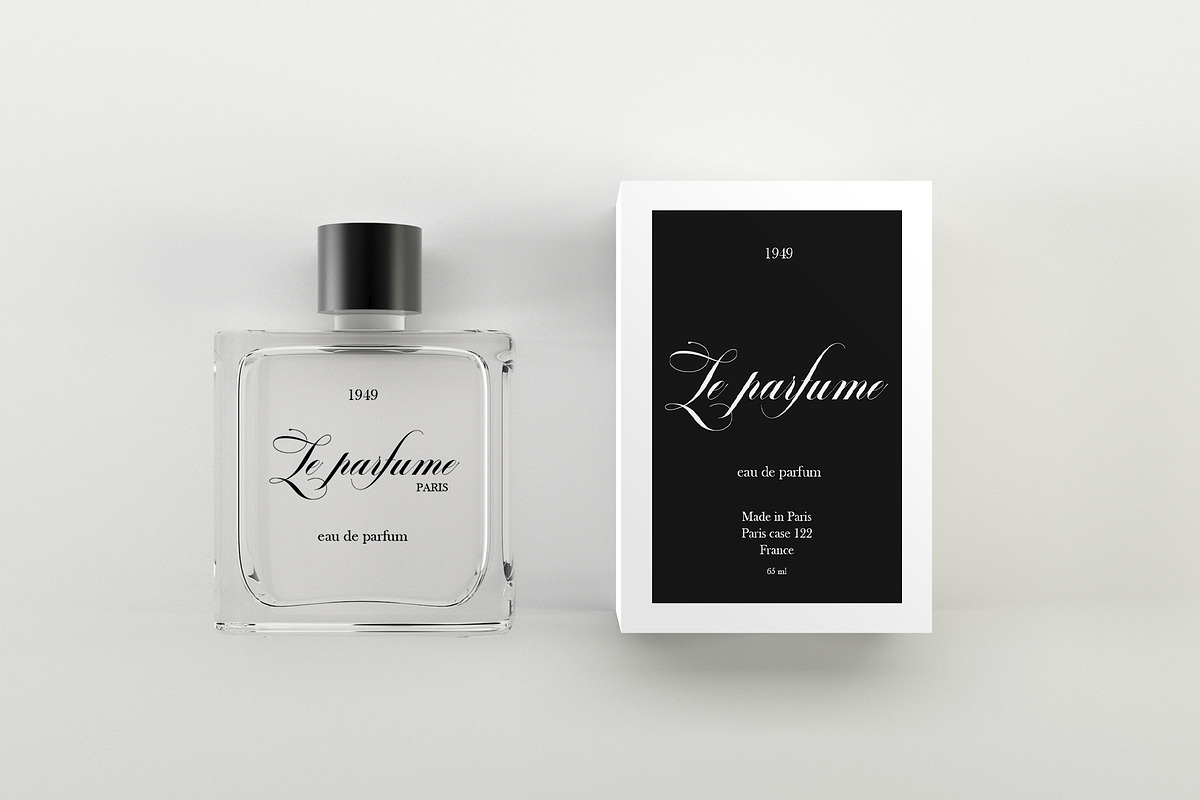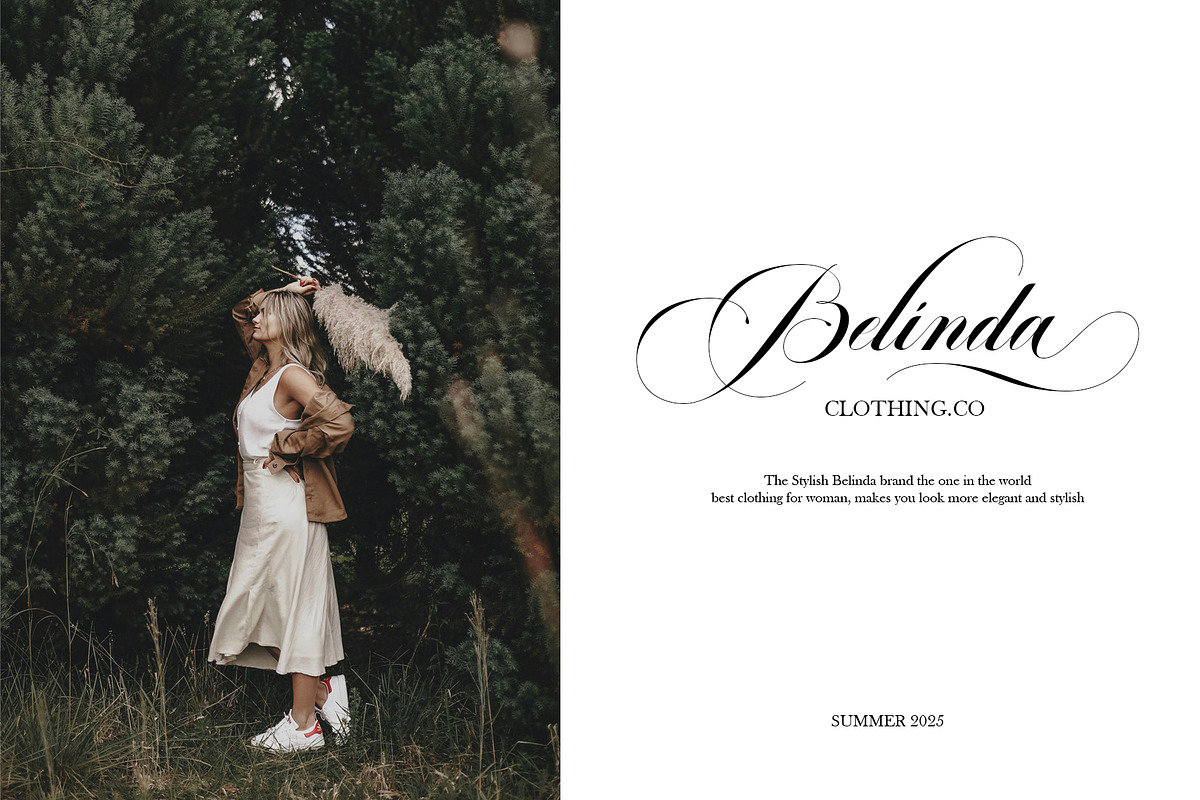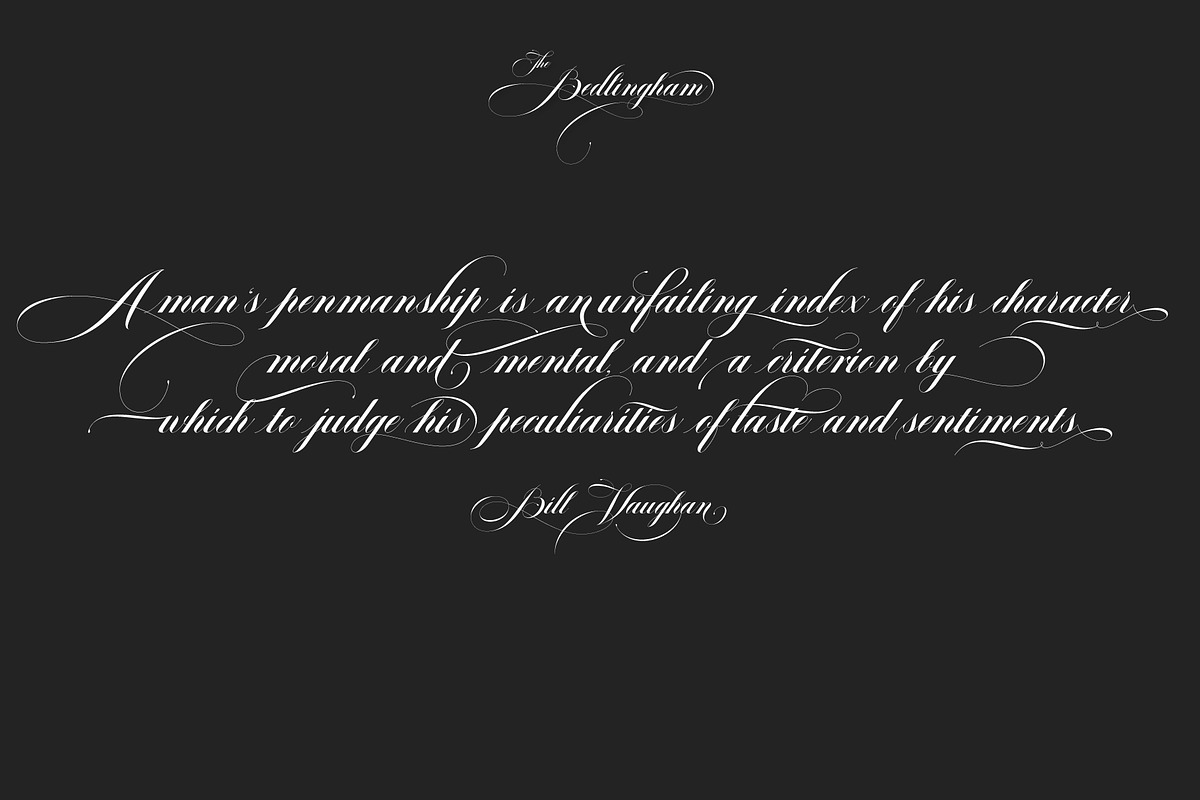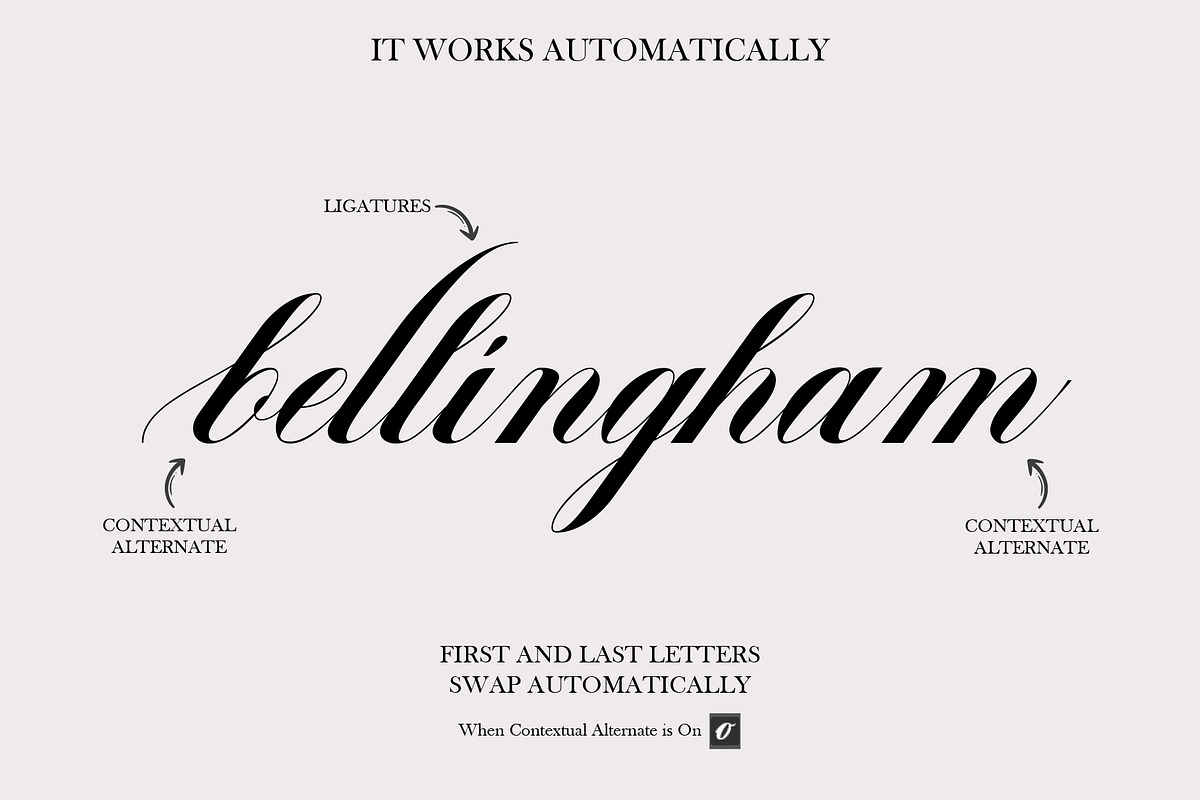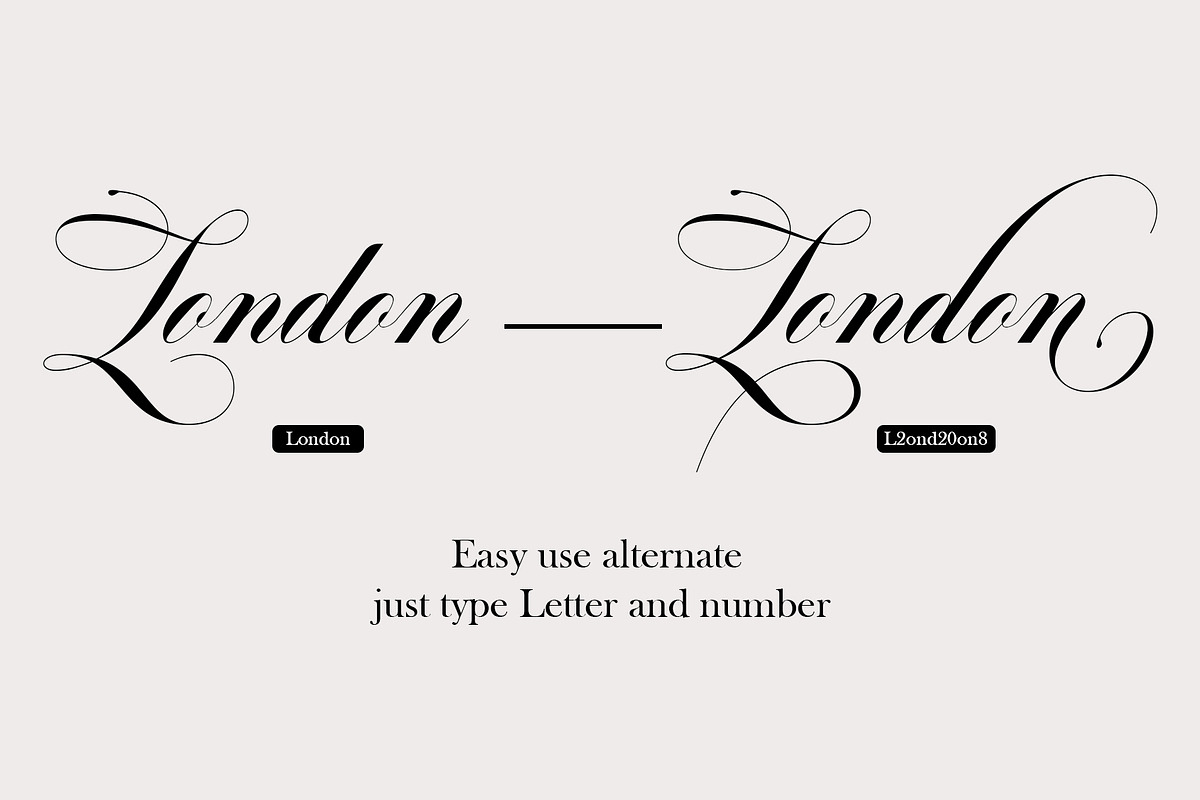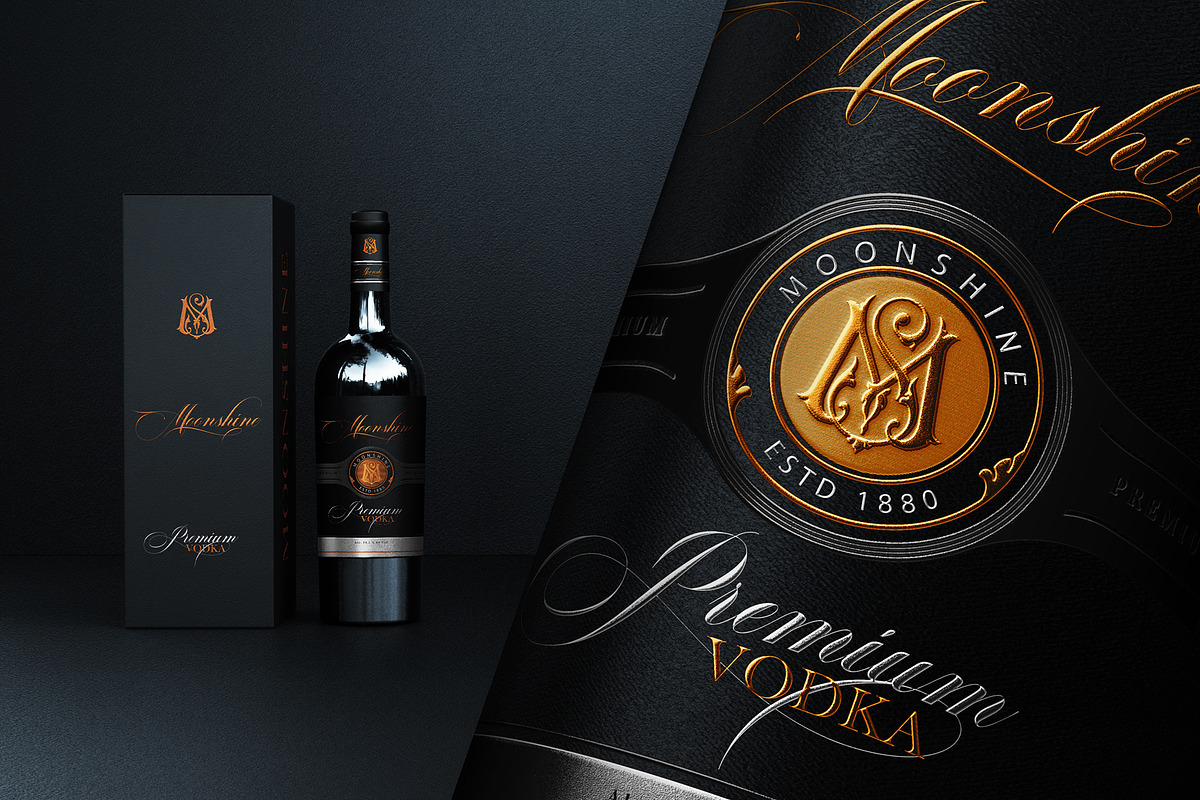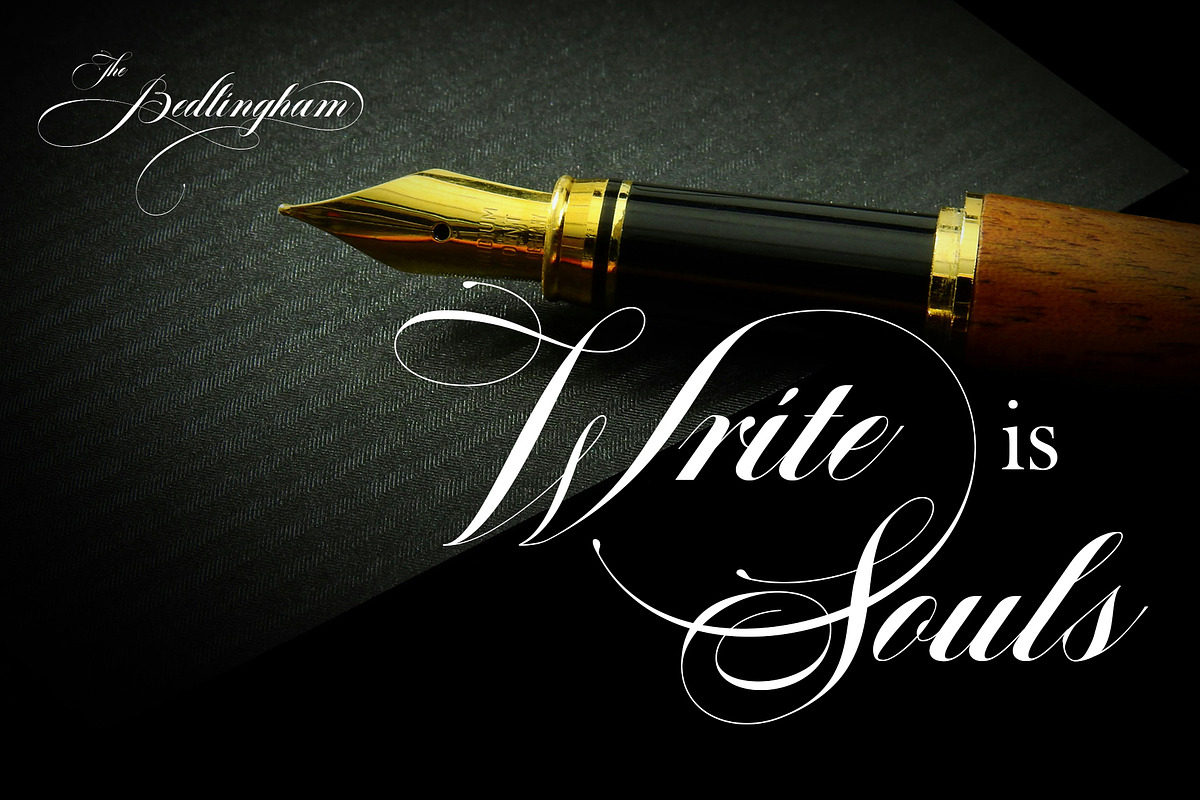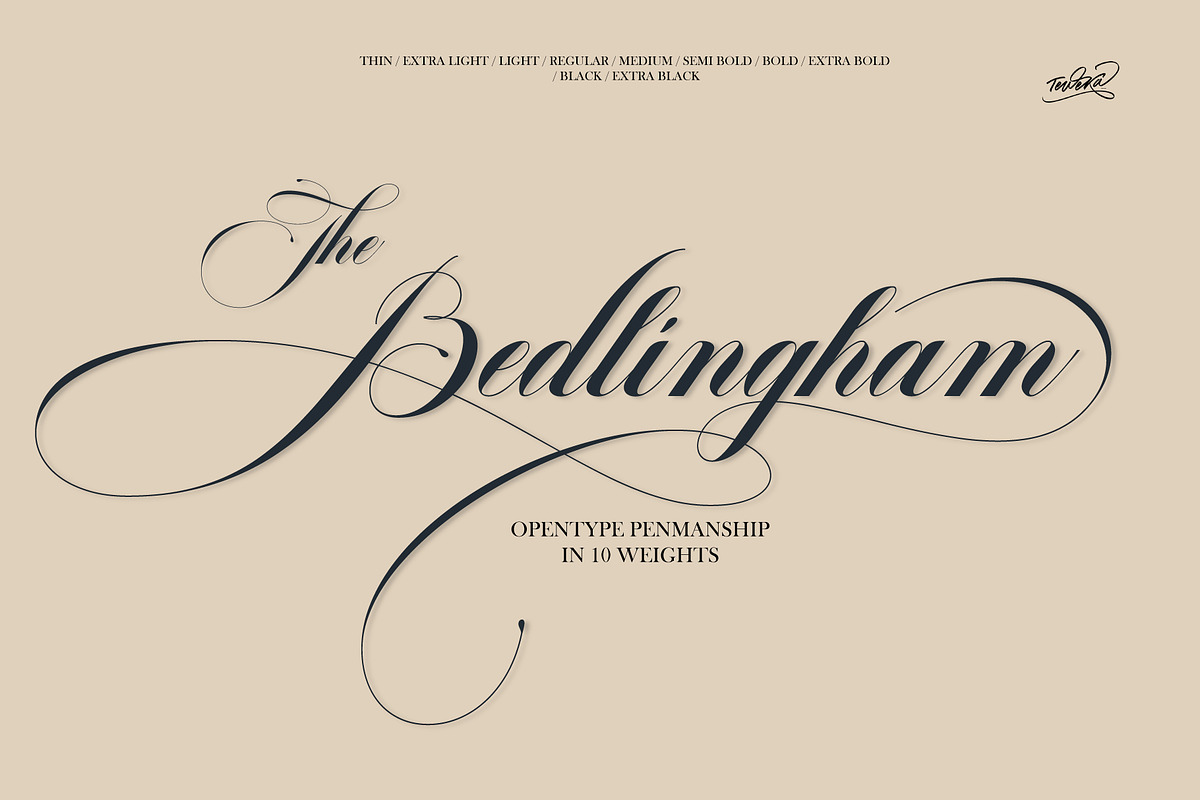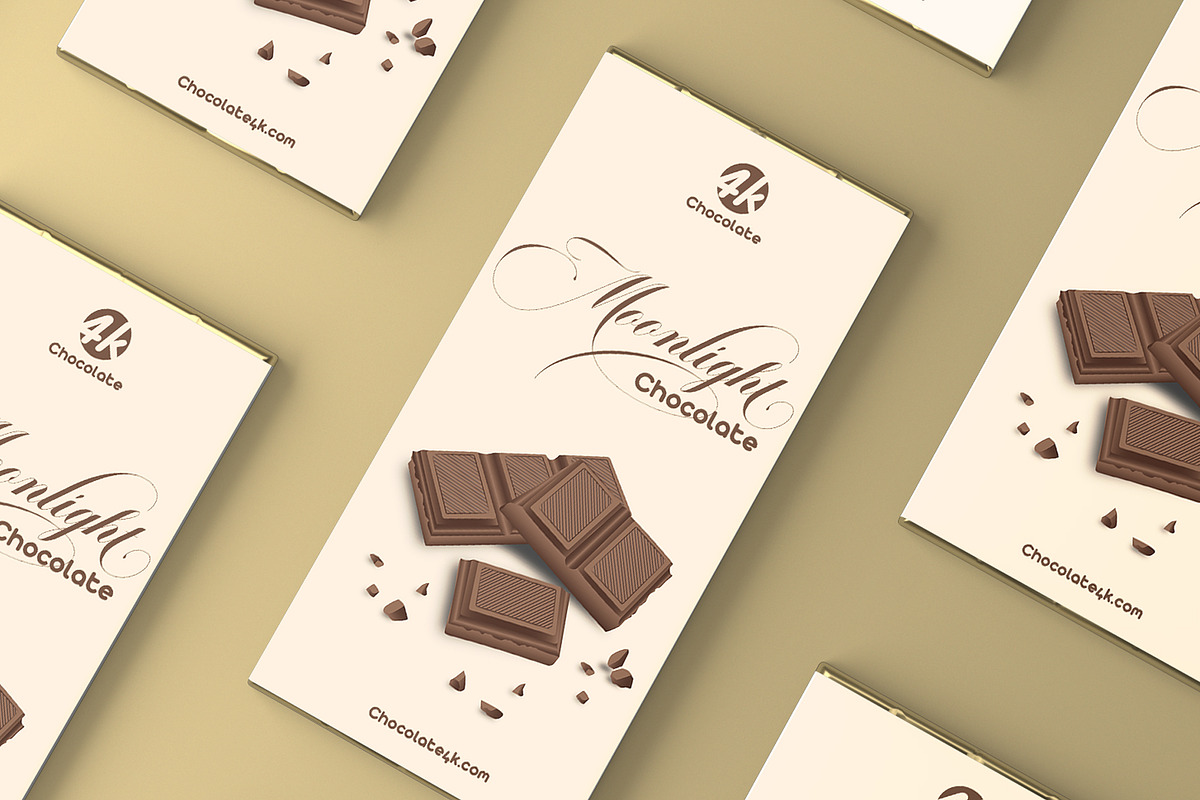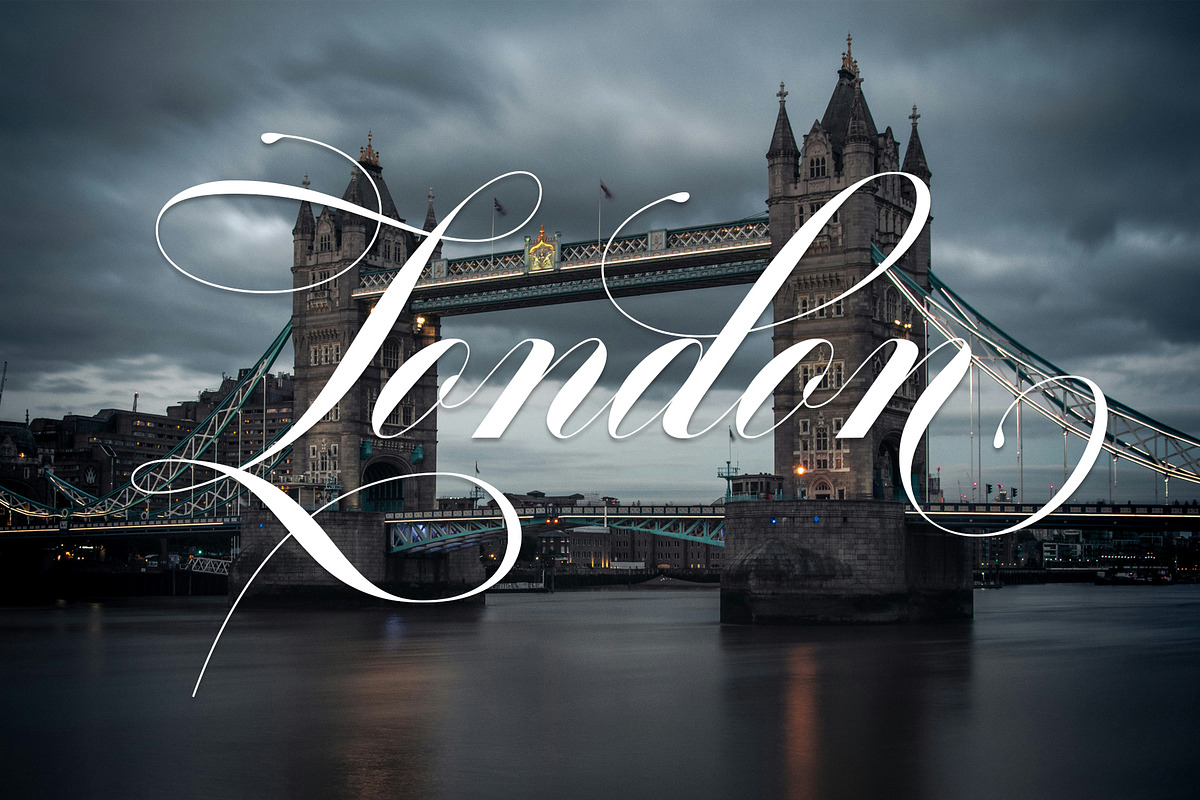
Bedlingham
Bedlingham is a font that has 10 thickness variations, this font has a very elegant classic style. Bedlingham also has a lot of ligatures, Stylistic Sets in each character. This font has an opentype feature which is equipped with contextual alternates which are replaced automatically and you can also access the Stylistic Set very easily, just by writing a combination of letters and numbers.
Opentype
This font has a total of 735 Alternates, They works on the principle of simple combinations with Letter and Number (Adobe Photoshop, Adobe Illustrator). Just add A1, A2 , A3 and etc.